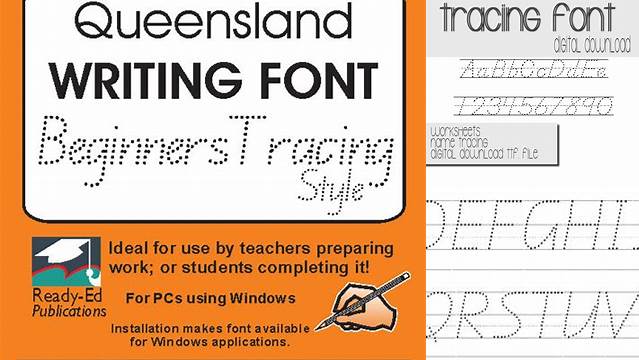
Hey guys! Are you looking for the perfect Queensland tracing font to help with your handwriting practice or educational materials? You've come to the right place! This article will dive deep into everything you need to know about Queensland tracing fonts, where to find them, and how to use them effectively. We'll cover various aspects, from understanding the importance of proper letter formation to providing you with the best resources for free TTF downloads. So, let’s get started and explore the world of Queensland tracing fonts together!
1. Understanding the Basics of Queensland Tracing Font
Let's start with the basics. Queensland tracing fonts are specifically designed to mimic the handwriting style taught in Queensland schools, Australia. This style focuses on clear, consistent letter formation, making it ideal for young learners who are just starting to write. These fonts provide a structured way to practice letter shapes, ensuring that children develop good handwriting habits from the beginning. Using a consistent font like this helps to avoid confusion and reinforces proper letter formation, which is crucial for early literacy skills. The uniformity in the font allows students to focus on the act of writing itself, rather than struggling with inconsistent letter shapes. Moreover, Queensland tracing fonts often include dotted lines or arrows to guide the writer, making the learning process even more intuitive. This structured approach is particularly beneficial for children who might be struggling with handwriting, providing them with a clear roadmap to follow. Beyond the classroom, these fonts are also valuable tools for parents who want to support their children's learning at home. By using the same font style as the school, parents can reinforce the lessons learned in the classroom, creating a cohesive learning environment.
2. The Importance of Using the Right Tracing Font
Using the right tracing font is incredibly important for several reasons. First and foremost, it ensures that children are learning the correct letter formations. If a child practices with a font that deviates from the standard Queensland style, they might develop habits that are difficult to break later on. Consistency is key in early handwriting education, and using the correct font helps to maintain that consistency. Additionally, the right tracing font can make the learning process more engaging and effective. Fonts that are clear and easy to read can help to reduce frustration and increase motivation, especially for young learners. Moreover, the right font often includes helpful features, such as dotted lines and directional arrows, which guide the writer through each stroke. This support is invaluable for children who are just starting to develop their fine motor skills. Furthermore, using a standard tracing font allows for better communication and collaboration between teachers, parents, and students. When everyone is using the same font, it’s easier to understand and reinforce proper handwriting techniques. In contrast, using a variety of fonts can lead to confusion and inconsistent practice, which can ultimately hinder a child's progress. Therefore, selecting the appropriate Queensland tracing font is a fundamental step in ensuring effective handwriting instruction.
6. Creating Handwriting Worksheets with Tracing Font
Creating handwriting worksheets with a Queensland tracing font is super easy and a fantastic way to help kids practice their handwriting. The first thing you'll want to do is open your word processor (like Microsoft Word or Google Docs) and select your newly installed font. Now, think about what you want to include in your worksheet. A good starting point is to focus on individual letters, both uppercase and lowercase. You can type each letter multiple times, using dotted lines or a light gray color to create a tracing effect. This allows children to follow the correct letter formation while practicing their fine motor skills. Another effective approach is to include simple words or phrases that incorporate the letters they're learning. For example, if they're practicing the letter “a,” you could include words like “apple,” “ant,” or “at.” You can also create worksheets that focus on specific handwriting patterns or strokes. This is especially helpful for addressing common handwriting challenges, such as letter reversals or inconsistent letter sizes. When designing your worksheets, consider the layout and spacing. Make sure there's enough room for children to comfortably trace each letter or word. You can also add visual cues, such as arrows, to indicate the direction of each stroke. Finally, don't forget to make the worksheets engaging and fun! You can incorporate colorful borders, pictures, or even short sentences that relate to the child's interests. By using a Queensland tracing font to create custom worksheets, you can tailor the learning experience to meet each child's individual needs.
7. Tips for Effective Handwriting Practice
Okay, so you've got your Queensland tracing font and your worksheets are ready to go. Now, let's talk about how to make handwriting practice as effective as possible. One of the most important things is consistency. Regular, short practice sessions are generally more beneficial than infrequent, long ones. Aim for 10-15 minutes of practice each day to reinforce proper letter formation. Another key tip is to focus on quality over quantity. It's better to write a few letters or words correctly than to rush through a whole page with sloppy handwriting. Encourage children to take their time and pay attention to the details of each stroke. Proper posture and pencil grip are also essential for effective handwriting. Make sure the child is sitting comfortably with their feet flat on the floor and their back supported. The pencil should be held with a relaxed grip, using the thumb, index, and middle fingers. Avoid gripping the pencil too tightly, as this can lead to fatigue and poor handwriting. Providing positive feedback and encouragement is crucial for maintaining motivation. Praise effort and improvement, rather than focusing solely on perfection. You can also incorporate fun activities and games into handwriting practice to make it more engaging. For example, try using colored pencils or markers, or create a handwriting scavenger hunt. Finally, remember to be patient and understanding. Handwriting is a skill that takes time and practice to develop. By following these tips and using your Queensland tracing font, you can help children build strong handwriting skills that will serve them well throughout their lives.
9. Exploring Different Styles Within Queensland Fonts
You might think a Queensland tracing font is just one thing, but there's actually some variation within the style! While the core principles of letter formation remain consistent, you'll find fonts with slightly different characteristics. For example, some fonts might have thicker strokes, making them easier for very young children to trace. Others might have more rounded letters, while some have a slightly more angular appearance. It's worth exploring different styles to find the one that best suits your needs and preferences. Another factor to consider is the presence of dotted lines and directional arrows. Some Queensland tracing fonts include these features to guide the writer, while others simply provide the outline of the letter. Fonts with dotted lines and arrows can be particularly helpful for beginners, as they offer additional support for proper letter formation. You might also find fonts that include variations for different letter joins. This is important as children progress in their handwriting development and start connecting letters to form words. Some fonts will show the correct way to join letters, while others leave it up to the writer to figure out. When choosing a font, think about the specific needs of the learner. A font with clear, simple letter shapes and helpful guides might be ideal for a young child just starting to learn handwriting. As their skills develop, you can switch to a font with more subtle guidance and a greater focus on letter joins. By exploring the different styles within Queensland tracing fonts, you can find the perfect tool to support handwriting development at every stage.
10. Using Tracing Fonts for Cursive Writing
While Queensland tracing fonts are primarily designed for print handwriting, they can also be a valuable tool for introducing cursive writing. The transition from print to cursive can be challenging for many children, but using a tracing font can make the process smoother and more intuitive. One approach is to start with a tracing font that includes both print and cursive letterforms. This allows children to see the connection between the two styles and gradually learn how to connect the letters. You can create worksheets that start with print letters and then transition to cursive, providing a visual guide for the transformation. Another technique is to use a standard Queensland tracing font to practice the individual cursive letters. Even though the font is designed for print, the basic letter shapes are similar in cursive. By tracing the print letters, children can develop the muscle memory and fine motor skills needed for cursive writing. When introducing cursive, it's important to focus on the flow and rhythm of the writing. Encourage children to write in a continuous motion, without lifting their pencil between letters. This can be challenging at first, but with practice, they'll develop a smooth, flowing cursive style. You can also use tracing fonts to practice letter joins, which are a crucial aspect of cursive writing. Create worksheets that focus on specific letter combinations, such as “th,” “sh,” or “ch,” to help children master these common joins. By incorporating Queensland tracing fonts into your cursive writing instruction, you can provide a solid foundation for developing fluent and legible cursive handwriting.
11. Adapting Worksheets for Different Skill Levels
One of the great things about using a Queensland tracing font is that you can easily adapt worksheets to suit different skill levels. Whether you're working with a beginner who's just learning to form letters or a more advanced writer who's refining their technique, you can customize the worksheets to meet their specific needs. For beginners, focus on large, clear letter shapes with plenty of space between each letter. Use dotted lines or a light gray color to create a tracing effect, providing a visual guide for proper letter formation. You might also want to include directional arrows to indicate the direction of each stroke. As learners progress, you can gradually reduce the size of the letters and decrease the spacing. This challenges them to write more precisely and control their pencil movements. You can also remove the dotted lines and arrows, encouraging them to form the letters independently. For more advanced writers, focus on refining letter joins and improving overall handwriting fluency. Create worksheets that include longer words and sentences, and encourage them to write at a consistent speed and rhythm. You can also introduce cursive writing using the tracing font, as discussed earlier. Another way to adapt worksheets is to target specific handwriting challenges. If a learner is struggling with letter reversals, for example, you can create worksheets that focus specifically on those letters. If they're having trouble with letter size consistency, you can include guidelines or baselines to help them maintain uniform letter heights. By carefully considering the learner's skill level and specific needs, you can create customized worksheets using your Queensland tracing font that are both challenging and effective.
12. Integrating the Font into Digital Learning Environments
In today's digital age, integrating a Queensland tracing font into digital learning environments is a fantastic way to enhance handwriting instruction. Whether you're using online learning platforms, interactive whiteboards, or digital tablets, there are many ways to incorporate the font and make handwriting practice engaging and effective. One simple approach is to create digital worksheets using your word processor and then upload them to a learning management system. Students can then download the worksheets and complete them using a stylus or digital pen on a tablet or computer. This allows them to practice their handwriting in a digital format while still benefiting from the guidance of the tracing font. Another option is to use interactive whiteboard software to create handwriting activities. Many interactive whiteboard programs include tools that allow you to create tracing exercises or write directly on the screen using a stylus. You can project worksheets created with the Queensland tracing font onto the whiteboard and have students come up and practice their handwriting in a group setting. Digital tablets offer even more opportunities for integrating the font into handwriting practice. Many tablet apps are specifically designed for handwriting instruction and allow you to import custom fonts. You can create interactive tracing exercises, letter formation games, and other activities that make handwriting practice fun and engaging. Some apps even provide real-time feedback on letter formation, helping students to improve their handwriting technique. By integrating the Queensland tracing font into digital learning environments, you can provide a dynamic and engaging way for students to develop their handwriting skills.
13. Exploring Other Handwriting Fonts
While Queensland tracing fonts are excellent for learning the specific handwriting style taught in Queensland schools, it's also worth exploring other handwriting fonts. Different fonts can offer unique features and styles, which can be beneficial for various learning needs and preferences. For example, some fonts might have a more playful or whimsical appearance, making them engaging for younger learners. Others might focus on a specific handwriting style, such as D'Nealian or Zaner-Bloser, which are commonly taught in other regions. Exploring different fonts can also help to address specific handwriting challenges. If a learner is struggling with letter reversals, for example, a font that emphasizes the correct letter orientation might be helpful. If they're having trouble with letter spacing, a font with wider spacing might make it easier to see the individual letters. In addition to tracing fonts, there are also many handwriting fonts designed for general writing and note-taking. These fonts often prioritize legibility and clarity, making them ideal for creating written materials that are easy to read. When choosing a handwriting font, it's important to consider the specific needs and goals of the learner. What style of handwriting are they learning? What challenges are they facing? What kind of materials will they be using the font for? By exploring the wide range of handwriting fonts available, you can find the perfect tool to support handwriting development and promote legible and fluent writing. Remember, the Queensland tracing font is a fantastic starting point, but it's just one piece of the puzzle.
14. The Benefits of Consistent Letter Formation
Consistent letter formation is a cornerstone of legible handwriting, and using a Queensland tracing font can significantly aid in achieving this goal. When letters are formed consistently, they are easier to recognize and read, which enhances overall communication clarity. Think about it: if someone's handwriting is erratic and inconsistent, it can be challenging to decipher their message, regardless of how brilliant their ideas may be. This is where the systematic approach of a Queensland tracing font comes into play. It provides a clear, repeatable template for each letter, ensuring that learners develop a reliable method for writing. The benefits of consistent letter formation extend beyond simple readability. It also contributes to writing fluency and speed. When the process of forming letters becomes automatic, writers can focus more on the content of their writing rather than the mechanics of it. This allows for a smoother, more efficient writing process, whether it's jotting down notes in a meeting or crafting a thoughtful essay. Furthermore, consistent letter formation can boost confidence in writing. Knowing that your handwriting is clear and legible can make you more comfortable and willing to express yourself in written form. This is particularly important for children who are developing their writing skills, as it can help them build a positive relationship with writing and learning in general. By emphasizing consistent letter formation through the use of a Queensland tracing font, we lay a solid foundation for effective written communication and lifelong learning.
15. How Tracing Fonts Aid Fine Motor Skill Development
Tracing fonts, like the Queensland tracing font, are not just tools for handwriting practice; they are also excellent aids for developing fine motor skills. Fine motor skills involve the small muscles of the hands and fingers, and they are crucial for a wide range of activities, from writing and drawing to buttoning clothes and using utensils. The act of tracing letters and shapes helps to strengthen these muscles and improve hand-eye coordination. When children trace letters using a Queensland tracing font, they are engaging in a controlled movement that requires precision and focus. They must carefully follow the lines and curves of each letter, which helps to refine their motor control. This practice is particularly beneficial for young learners who are still developing their fine motor skills. Furthermore, tracing encourages the development of a proper pencil grip. Holding a pencil correctly is essential for comfortable and efficient handwriting, and tracing exercises provide an opportunity to practice this grip. By guiding the hand through the correct letter formations, tracing fonts help children to internalize the movements and develop muscle memory. Beyond handwriting, the fine motor skills developed through tracing can have a positive impact on other areas of a child's development. They can improve their ability to manipulate small objects, perform intricate tasks, and even enhance their artistic skills. In essence, using a Queensland tracing font is a holistic approach to learning, fostering not only handwriting proficiency but also overall fine motor development.
16. Common Handwriting Challenges and How Fonts Help
Handwriting can be a tricky skill to master, and many learners face common challenges along the way. Fortunately, Queensland tracing fonts can be invaluable tools for addressing these issues and fostering improved penmanship. One prevalent challenge is letter reversals, where learners confuse letters like